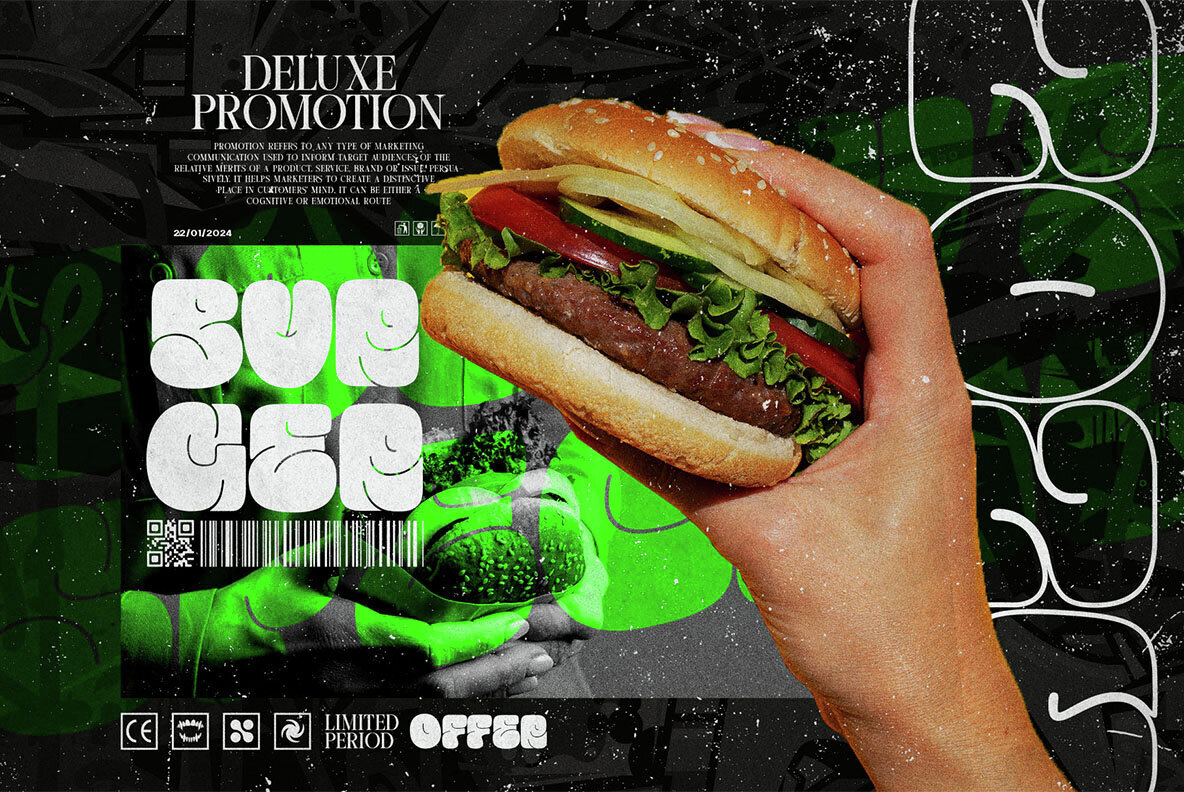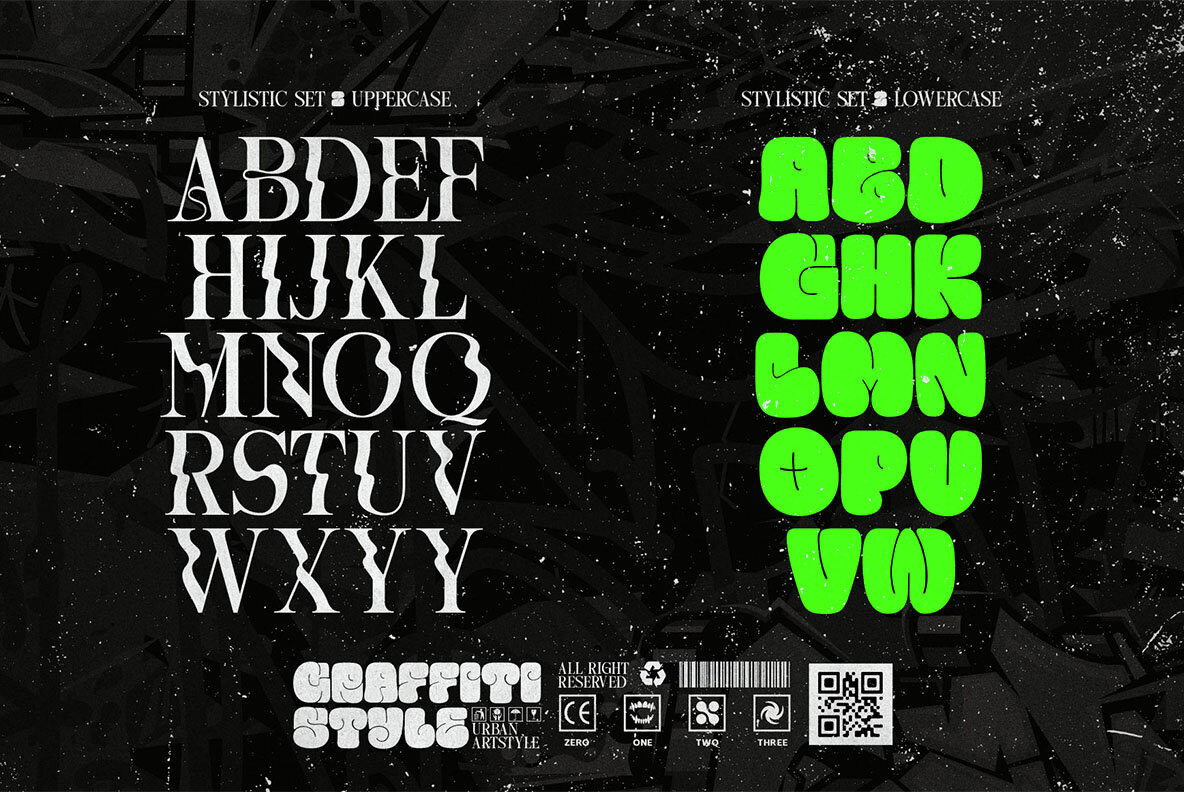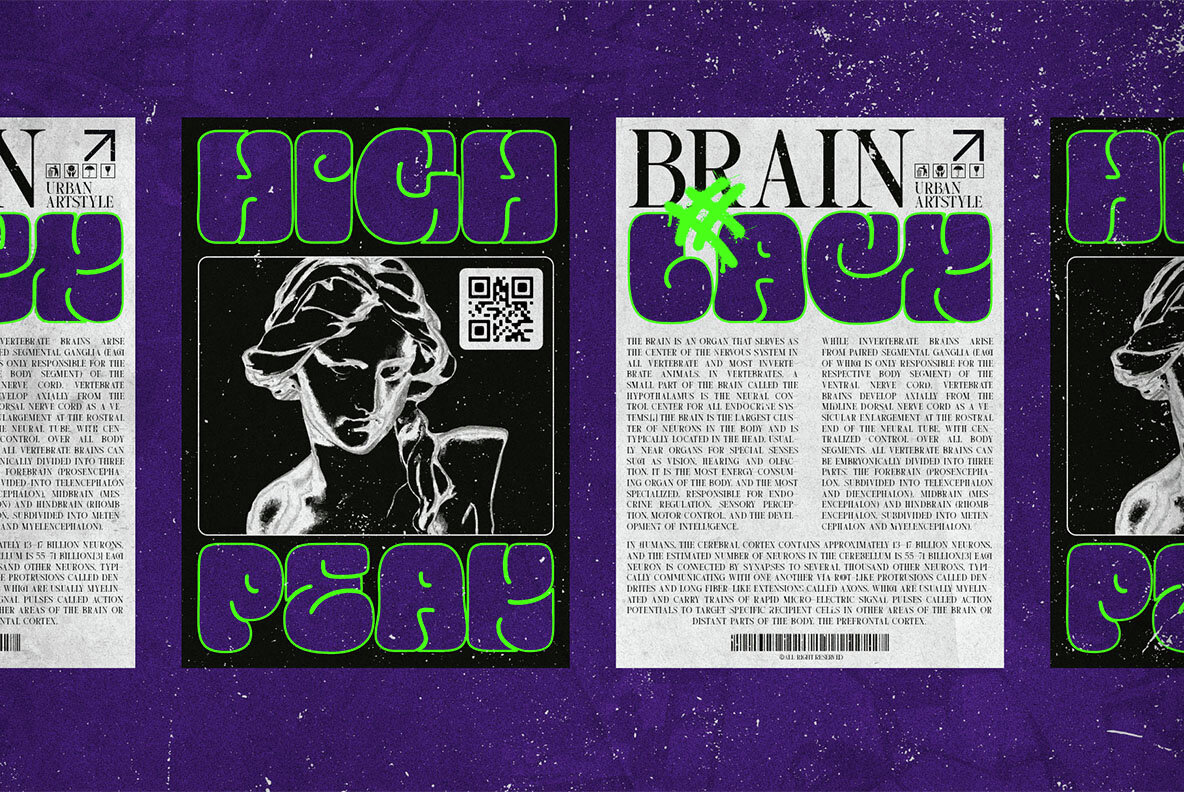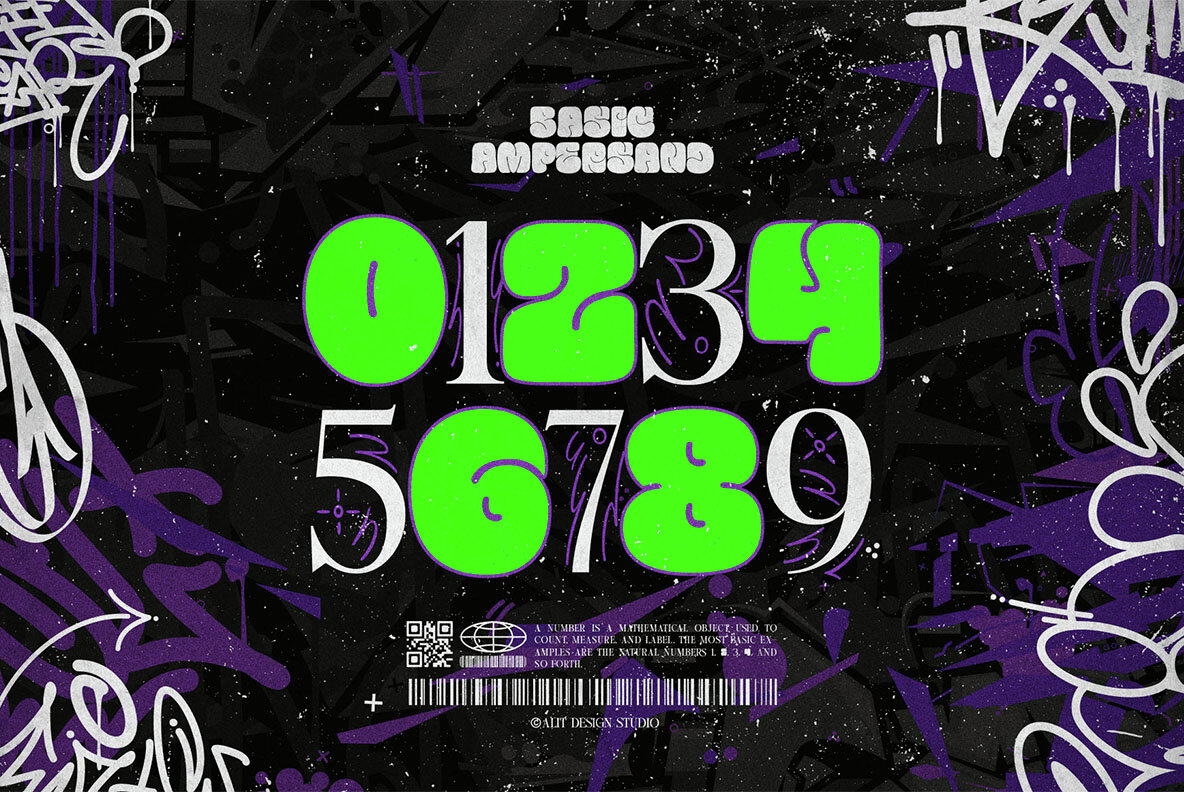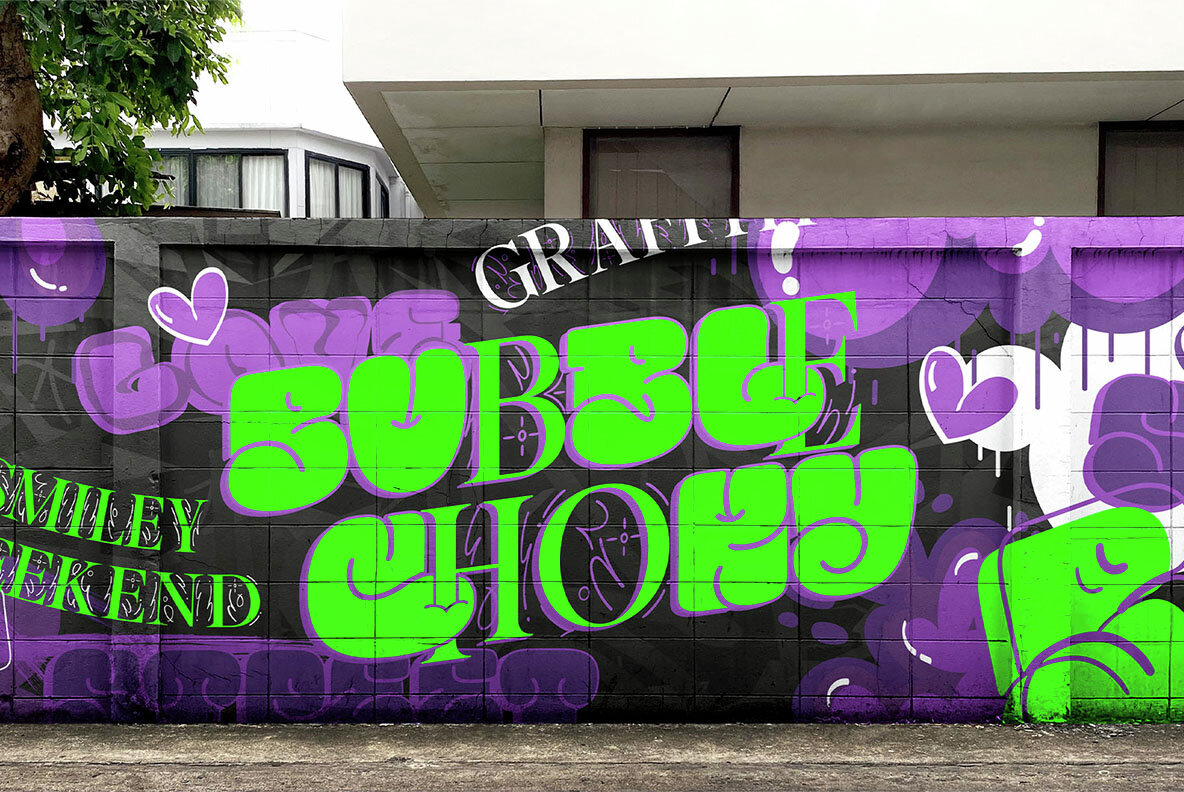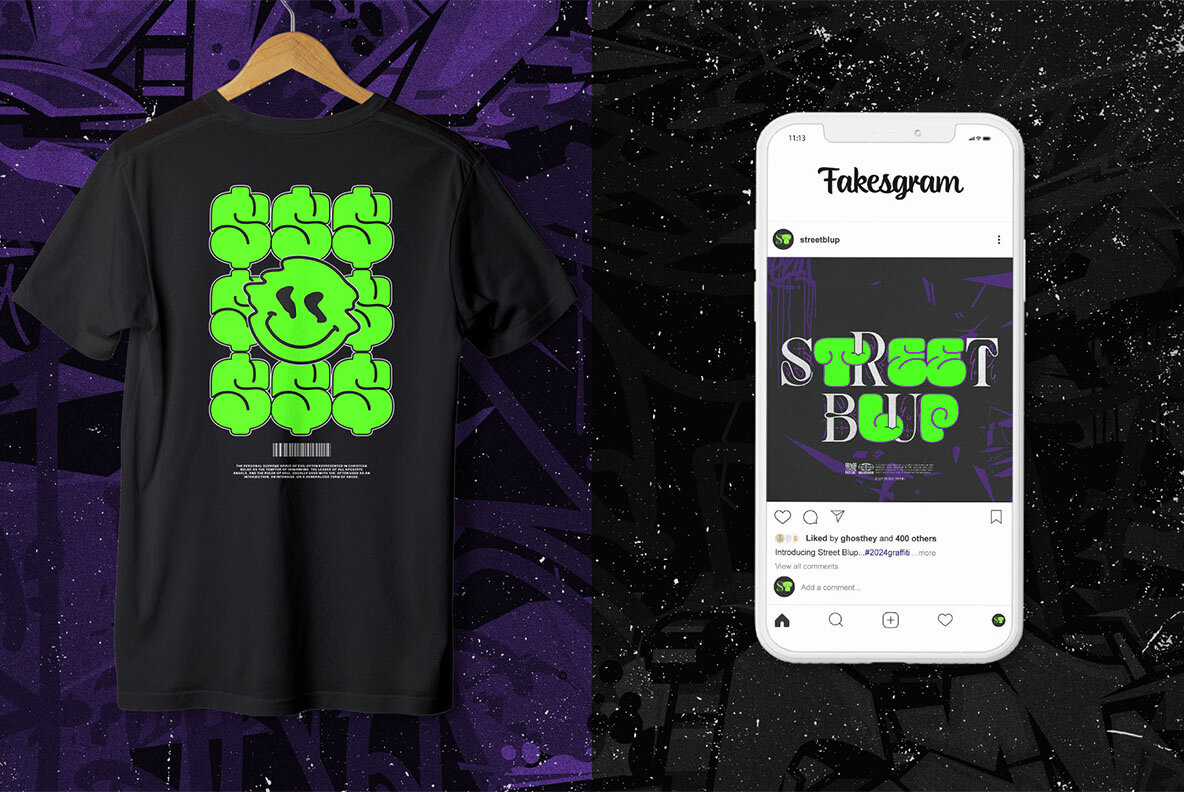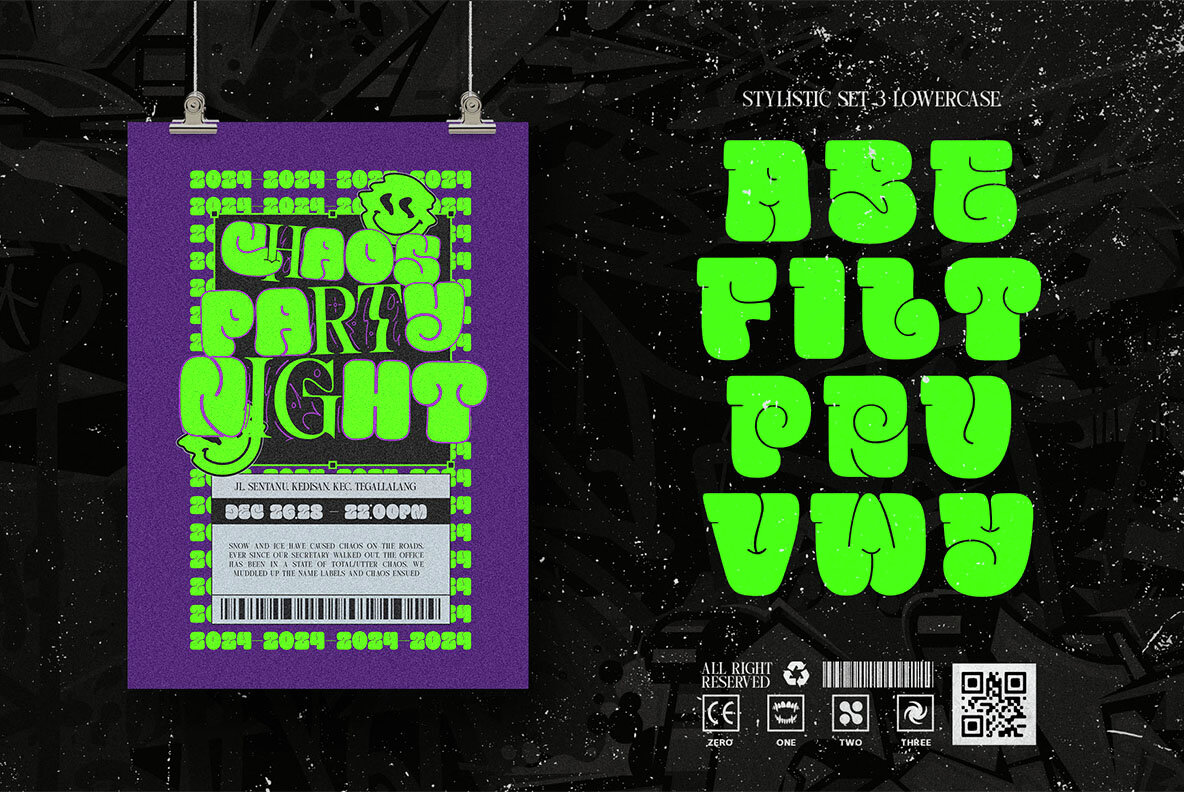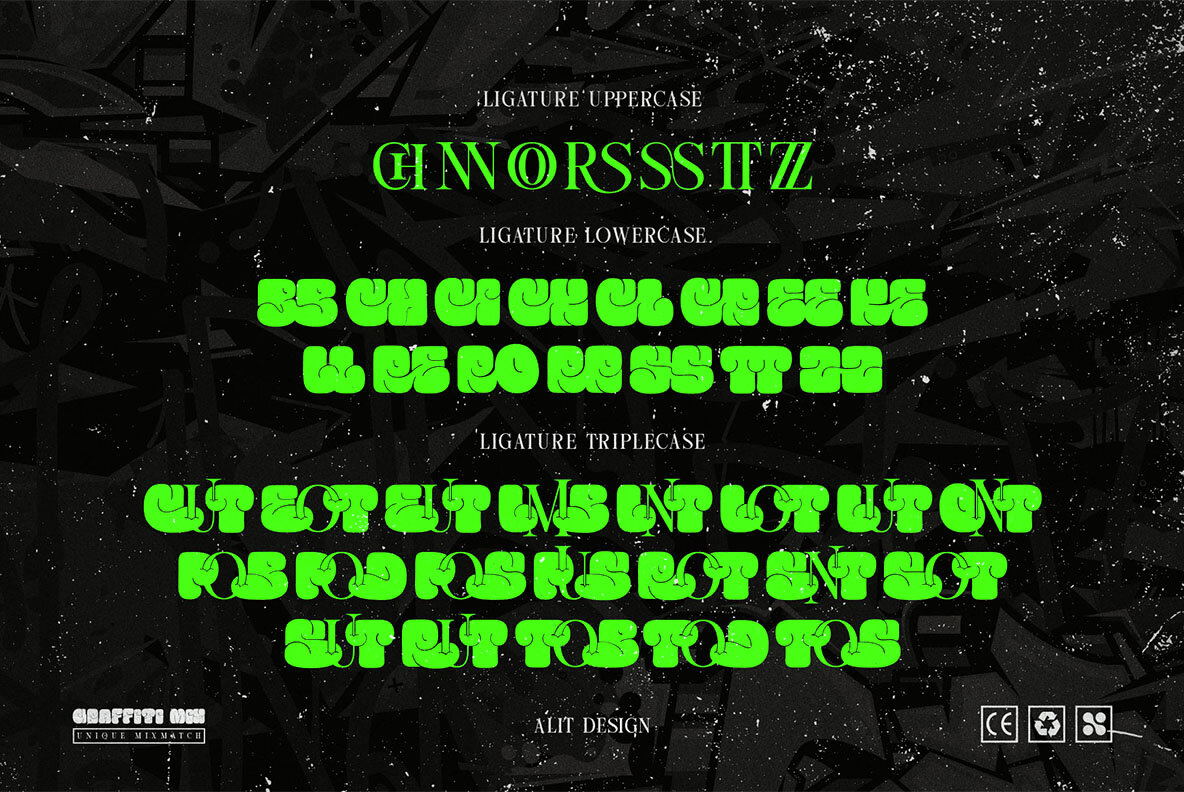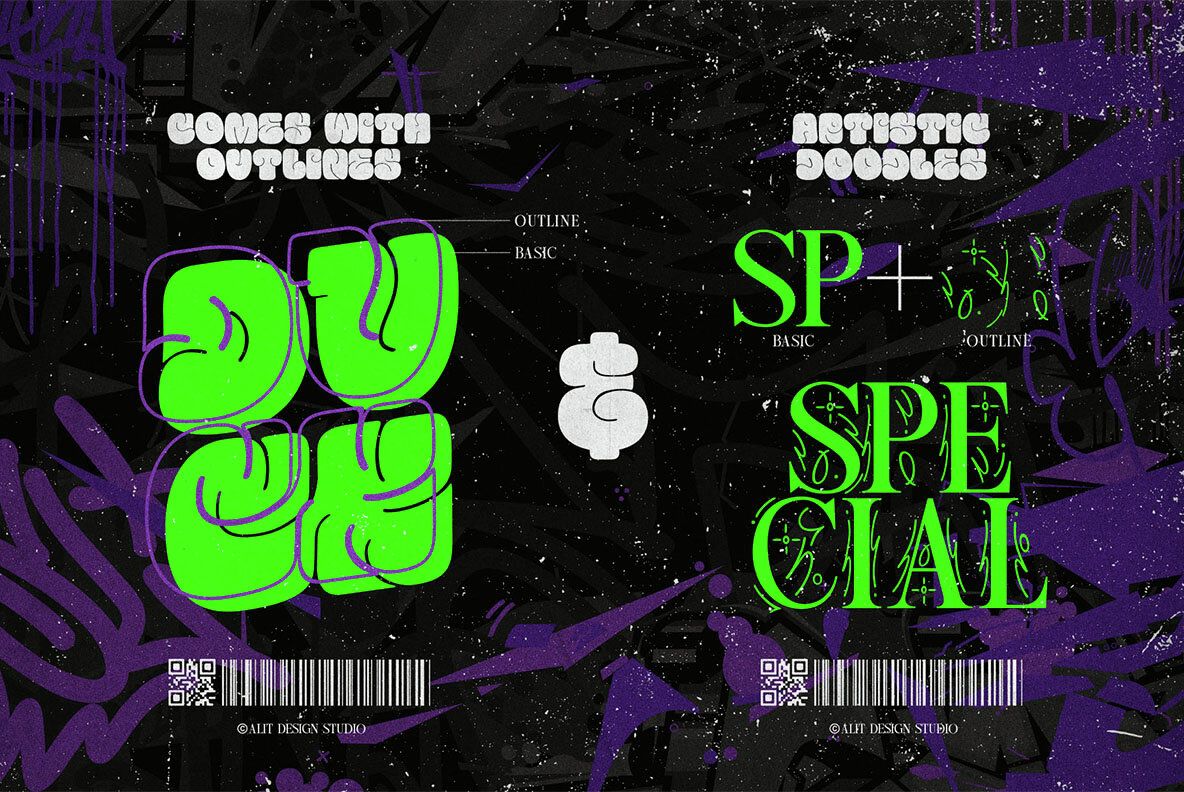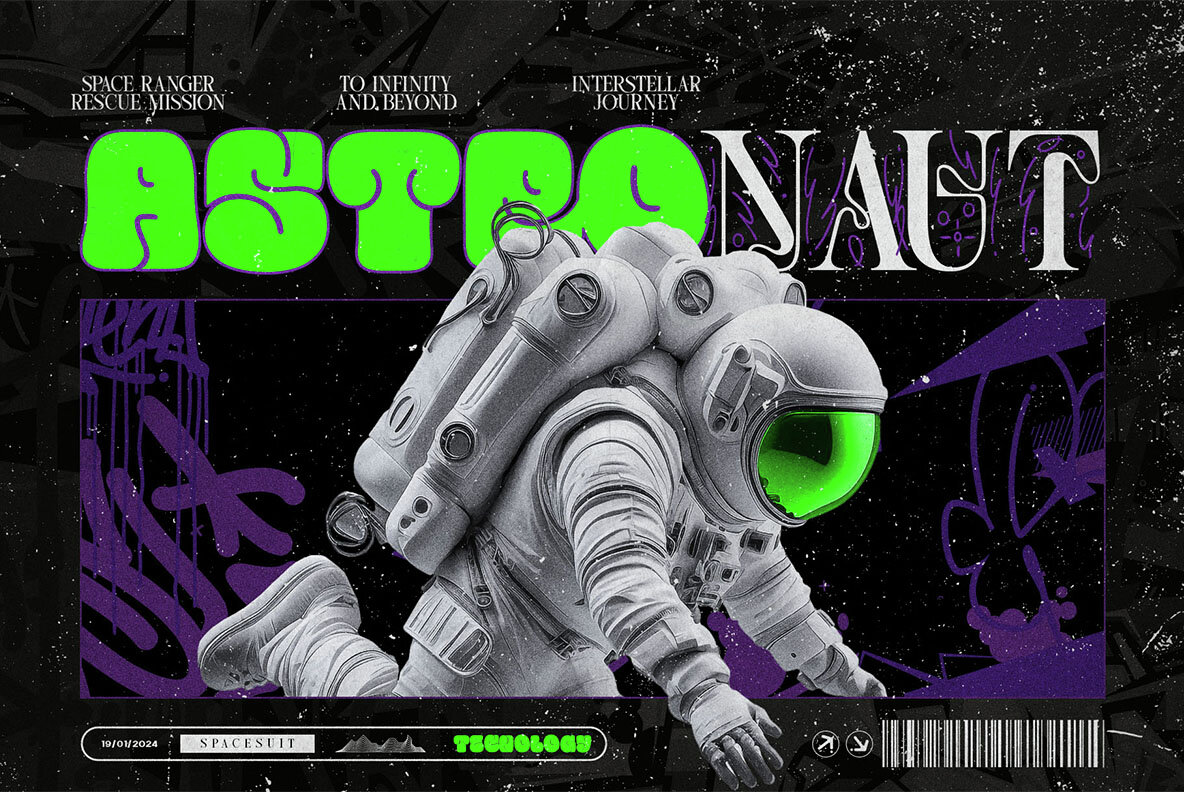
Street Blup Font
Introducing "Street Blup Graffiti Typeface" where the timeless elegance of serif fonts collides with the edgy vibrancy of modern street art graffiti. This bold and dynamic typeface brings a fresh perspective to your projects, seamlessly blending the sophistication of serif with the urban flair of graffiti. Crafted with meticulous attention to detail, "Street Blup" embodies the spirit of the streets, exuding a raw energy that commands attention. Each character is meticulously designed to capture the essence of urban culture, from its sharp edges to its fluid curves. What sets "Street Blup" apart is its unique ligature character, reminiscent of a skewer, adding a touch of distinctiveness to your designs. Whether you're creating posters, logos, headlines, or social media graphics, this typeface injects personality and attitude into every project. Embrace the boldness of the streets and the elegance of serif fonts with "Street Blup Graffiti Typeface." Make your designs stand out with its modern, dynamic, and unmistakably urban aesthetic.